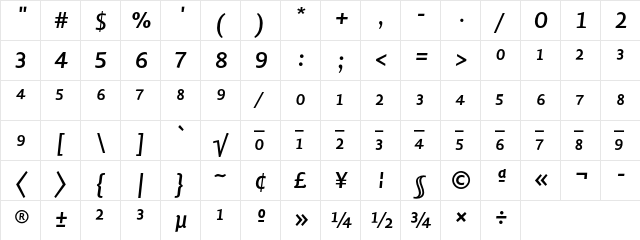
Lisboa Expert Bold Italic
Design Context for Lisboa Expert Typeface
Lisboa Expert is a composed and adaptable typeface that performs quietly and consistently across a wide range of design contexts. The dynamic lean of this cut emphasises speed and emphasis in any layout. The heavy weight commands attention and anchors typographic hierarchies.
Pro Tip: Use Lisboa Expert for emphasis, pull quotes, and subheadings where its slanted energy can add rhythm to the layout.